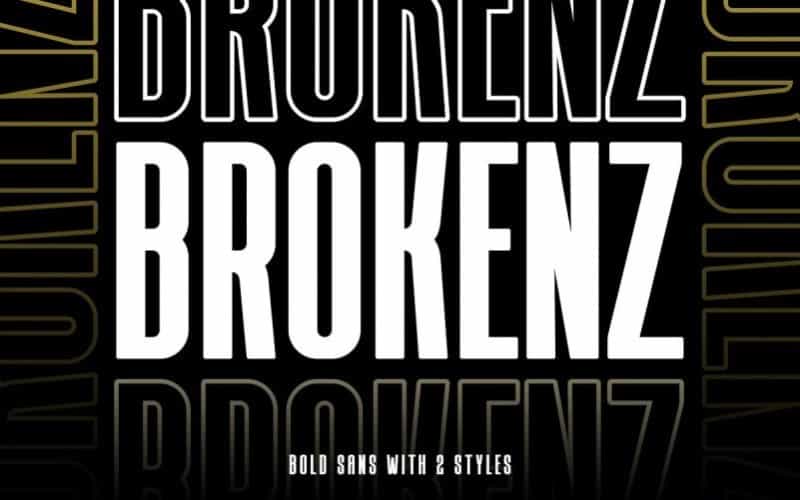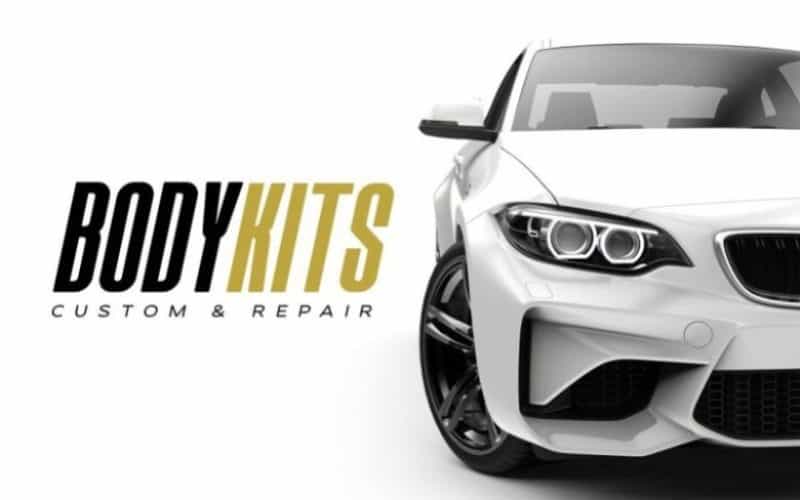
BROKENZ – A set of Bold Sans Condensed fonts in 4 styles that exude strength and boldness. Perfectly suited for titles, typography work, apparel designs, magazines layouts, brochures creation, packaging design needs and more – all aimed at giving your projects an polished look.